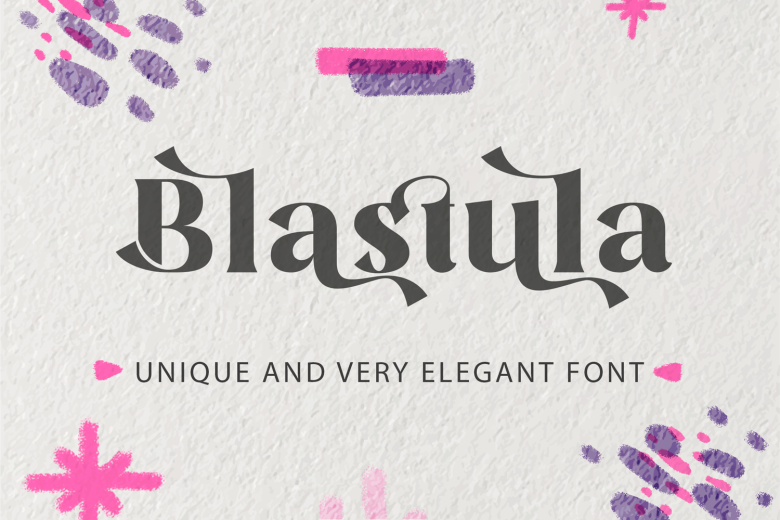
Blastula Font
Blastula is an elegant, bold and trendy serif font. It will elevate a wide range of crafting ideas, from cards, to branding, labels and much more.